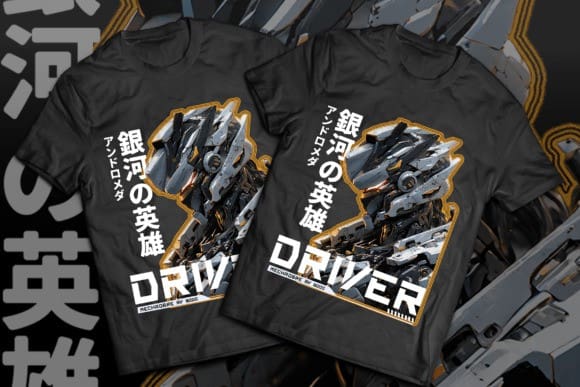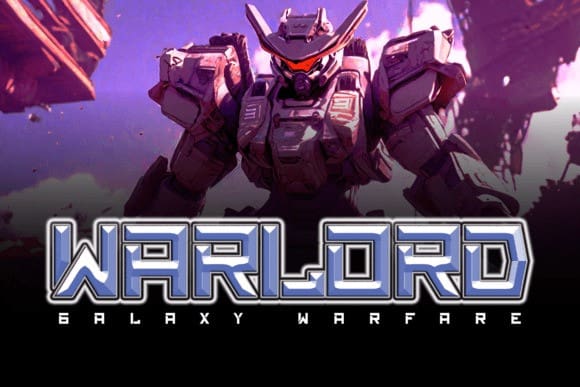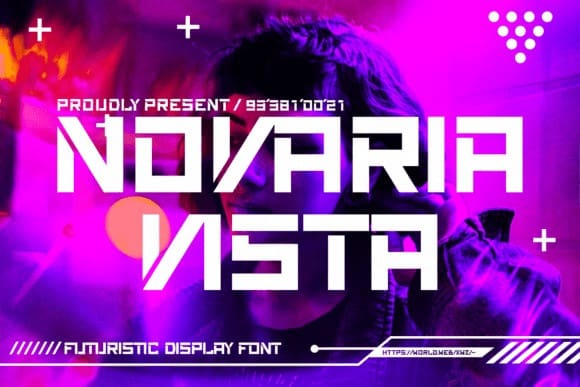
Novaria Vista Font
Novaria Vista Font, is a cool, futuristic display font. No matter the topic, this font will be an incredible asset to your fonts’ library, as it has the potential to elevate any creation.